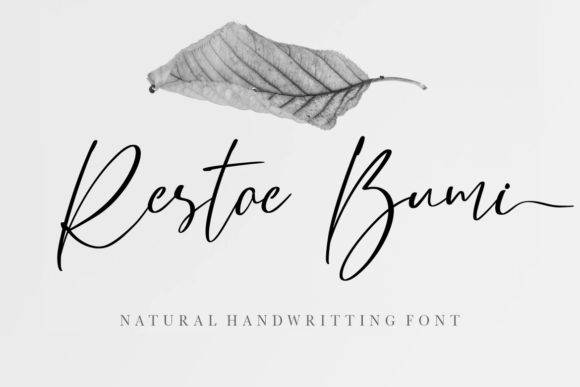
Restoe Bumi: The Epitome of Refined Script Elegance.
Unleash your creative vision with Restoe Bumi, the pinnacle of script fonts, meticulously crafted by HansCo to offer unparalleled beauty and functionality. Its elegant curves and modern aesthetics make it the perfect choice for those seeking a sophisticated touch in their designs. Restoe Bumi's versatility extends from logos and branding to invitations, stationery, wedding designs, and social media posts, ensuring it complements any project with grace.
Embrace the Restoe Bumi experience and elevate your designs to new heights. Its PUA encoding grants you effortless access to an array of glyphs and swashes, empowering you to express your unique style with endless possibilities. From captivating logos that exude professionalism to enchanting invitations that radiate warmth, Restoe Bumi transforms ordinary words into works of art.
Indulge in a world of visual splendor as you witness Restoe Bumi's transformative power. Its delicate strokes and refined character lend an aura of sophistication, while its modern appeal keeps you in step with the times. Let Restoe Bumi be your muse, inspiring you to create designs that resonate with elegance and timeless charm.
Step into the realm of Restoe Bumi and unlock a world where creativity flourishes and artistry abounds. Experience the true essence of script typography and let your designs shine with a captivating allure. Restoe Bumi is more than just a font; it's an invitation to embark on a creative journey that will leave you spellbound.